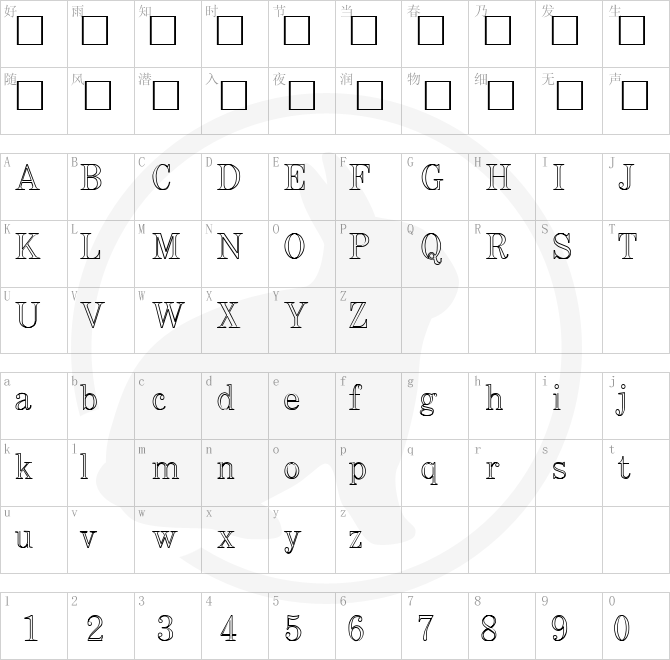
- Font Name:QTCraigetypeOutline
- Subfamily:Altsys Fontographer 3.5 QTCraigetypeOutline Regular
- Full Name:QTCraigetypeOutline Regular
- PostScript:QTCraigetypeOutline Regular
QTCraigetypeOutline-Regular.ttf is a very beautiful artistic font, QTCraigetypeOutline-Regular.ttf is widely used in the design and printing of various books and pictures,QTCraigetypeOutline-Regular.ttf has a strong visual impact,QTCraigetypeOutline-Regular.ttf is a commonly used font in newspapers, magazines and books, and is used in posters, e-commerce Poster design, store design, logo design, font design and other fields.QTCraigetypeOutline-Regular.